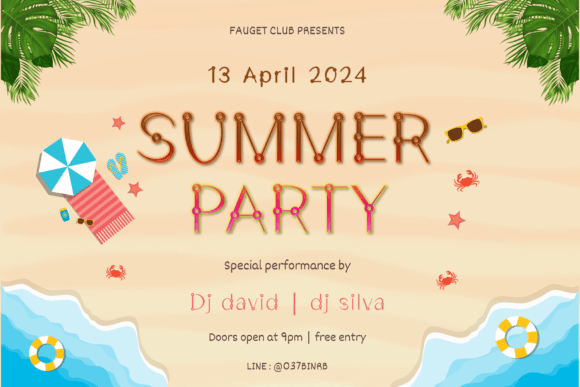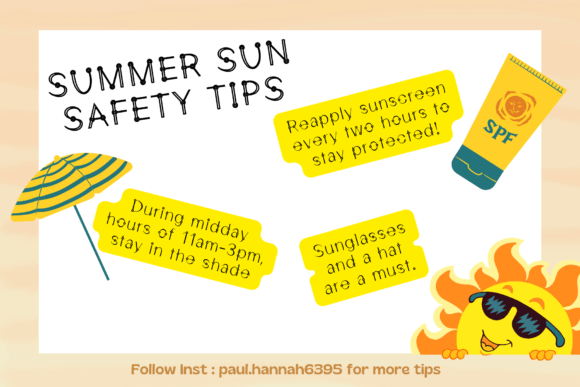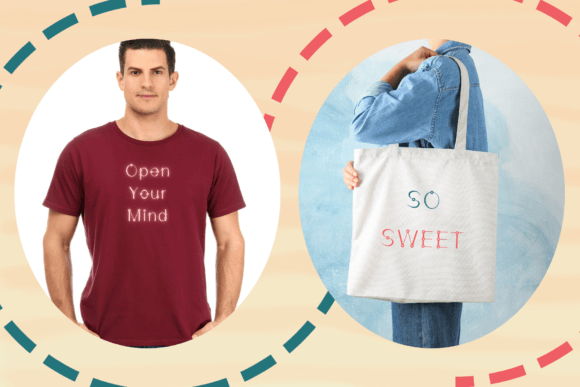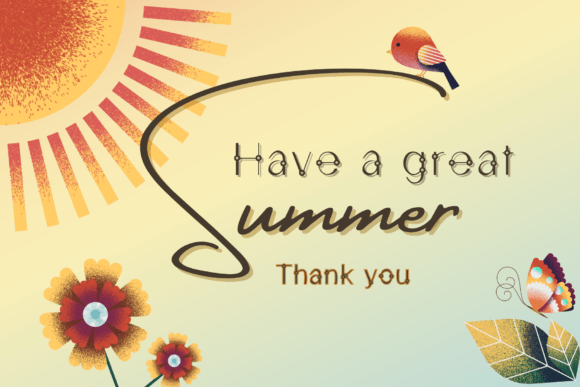
The Sun’s Inspiration: Unveiling the Circle Release Font
Have you ever felt a spark of creativity when a beautiful sunrise greets your morning? For designers, this feeling is a constant source of inspiration, driving them to craft visually stunning pieces that evoke emotions and tell stories. The Circle Release Font is a testament to this creative process, born from the idea that light is the origin of natural images that shape our experiences.
This elegant font is designed to capture the essence of the sun, its warmth, and its life-giving energy. The Circle Release Font serves as a connection point between the designer and the viewer, facilitating a seamless communication that transcends words. For designers seeking to create unique and captivating visual identities, the Circle Release Font is a valuable asset that can elevate their work to new heights.
Circle Release Font Key Features
- Unique Characteristics: The font features a unique, hand-drawn design with circular shapes and rounded edges, giving it a friendly and approachable feel.
- Font Style: The font comes in regular and bold weights, allowing for versatility in design and layout.
Designer Review: Circle Release Font
I recently had the chance to work with the Circle Release Font, and I must say it’s a unique addition to any design project. ✨ One of the things I appreciate about this font is its versatility – it can be used for both formal and informal projects, making it a great all-around choice.
- ✨ Customizable: The font offers a range of customization options, including line width, spacing, and shape variation, which allows designers to tailor it to their specific needs.
- ✨ Expressive: The font’s circular shapes give it a distinctive, expressive feel that can add a touch of whimsy to a design project.
However, I did encounter a few limitations with the Circle Release Font. ⚠️ One of the main issues is that it can be a bit difficult to read at smaller font sizes, especially in situations where the text is stacked or closely spaced.
- ⚠️ Readability: As mentioned, the font can be a bit challenging to read at smaller sizes, which may limit its use in certain applications.
- ⚠️ Consistency: Some users have reported inconsistencies in the font’s rendering across different devices and browsers, which can affect its overall appearance.
Overall, I think the Circle Release Font is a solid choice for designers looking for a unique, expressive font. While it may have some limitations, its versatility and customizable options make it a great addition to any design project.
The Circle Release Font is commonly used for:
- Creating modern and sleek designs.
- Adding a touch of elegance to business cards and resumes.
- Designing social media graphics and posters.